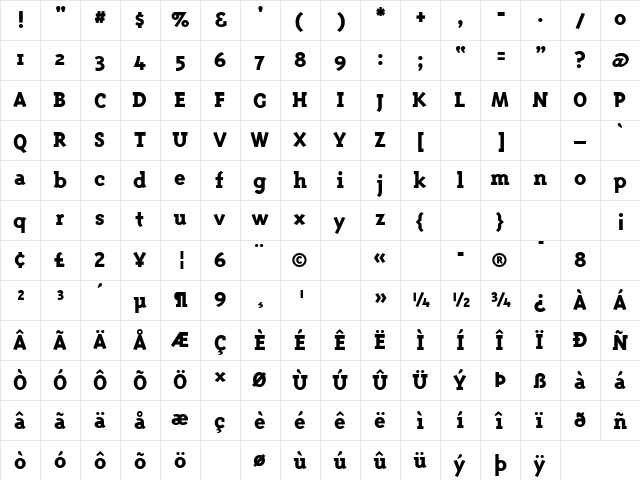
TriplexSerifExtrabold Regular
Design Context for TriplexSerifExtrabold Typeface
TriplexSerifExtrabold brings classic typographic sensibility to the table — its serifs and measured letterforms reflect centuries of print heritage. Its bold stroke weight gives it real presence on the page.
Pro Tip: Set TriplexSerifExtrabold with slightly loose tracking in headlines to let each letterform's detail read clearly at display sizes.